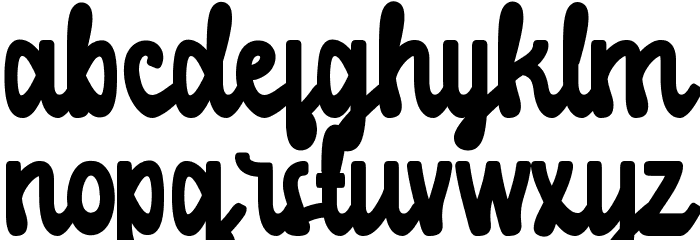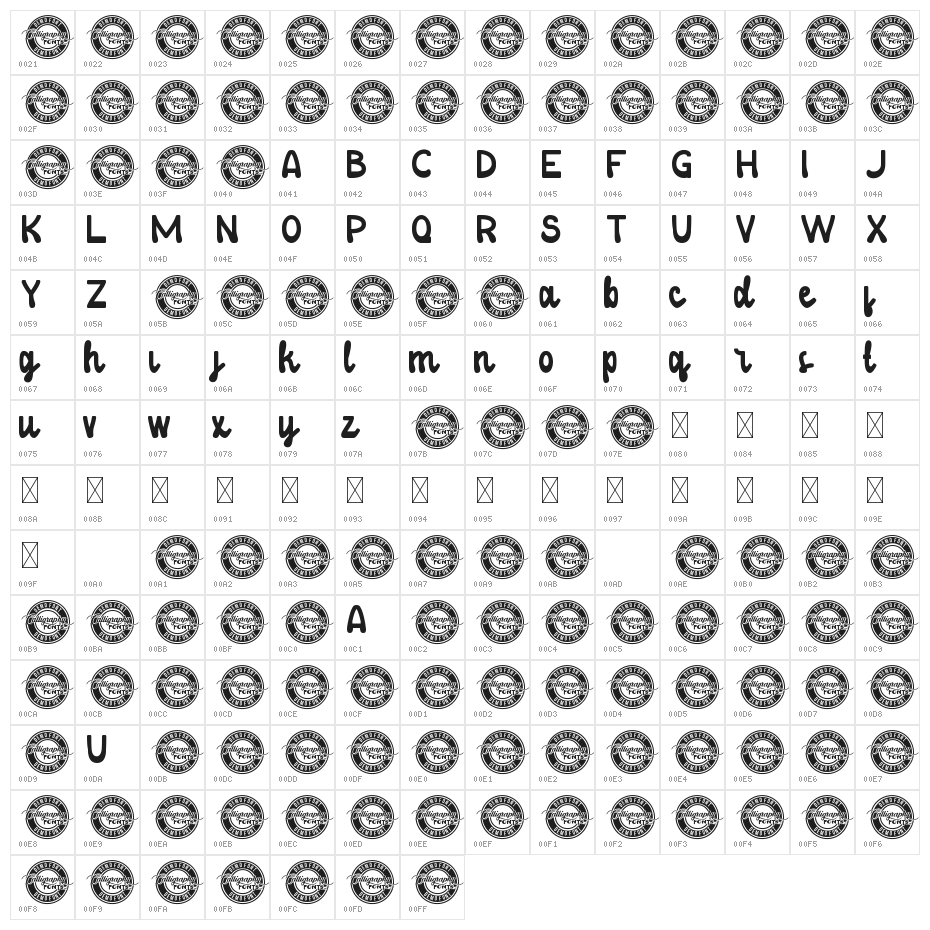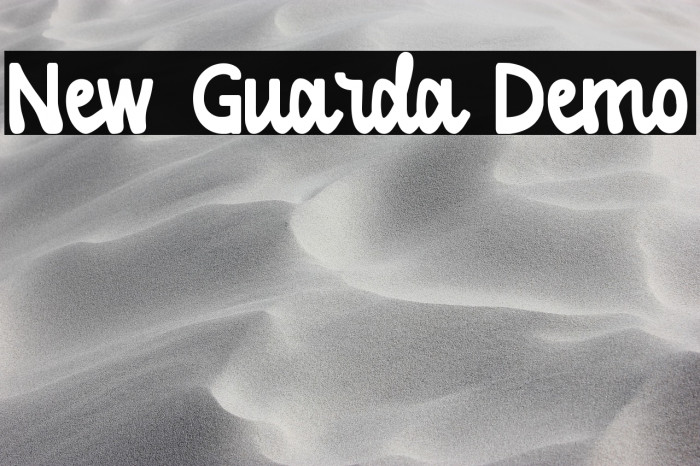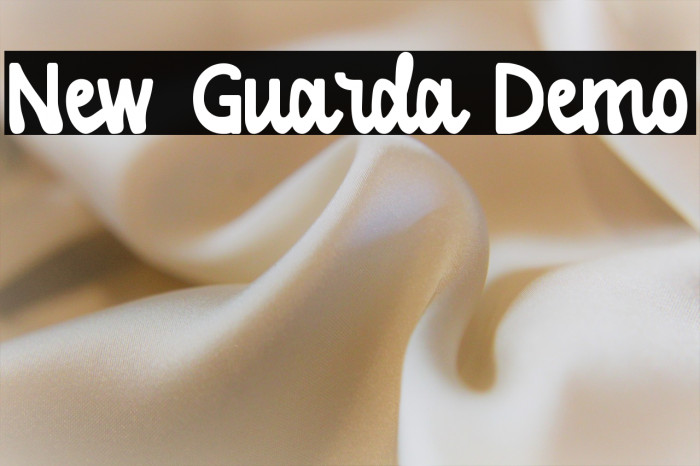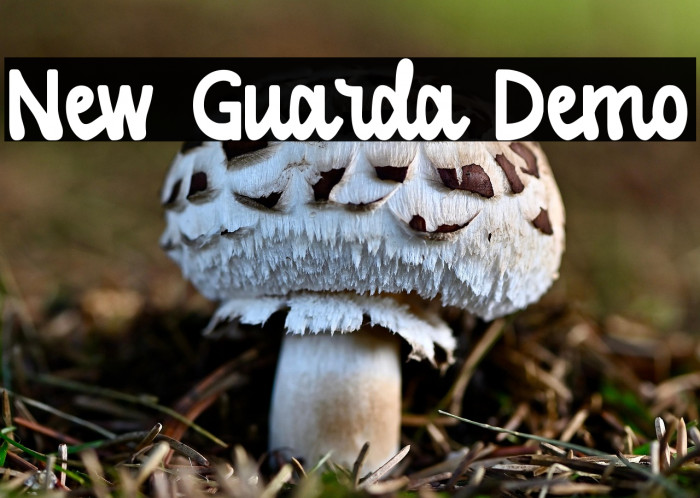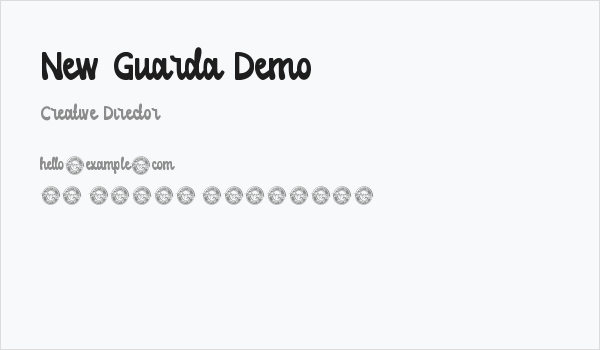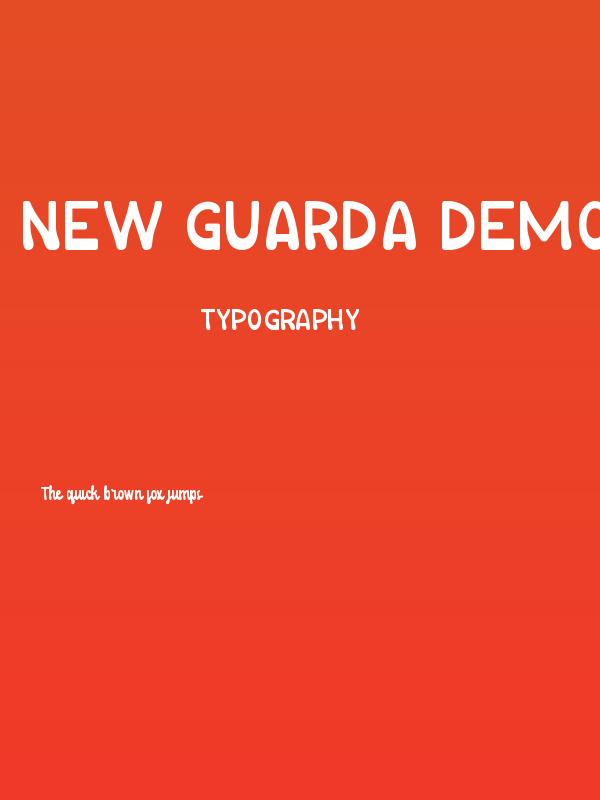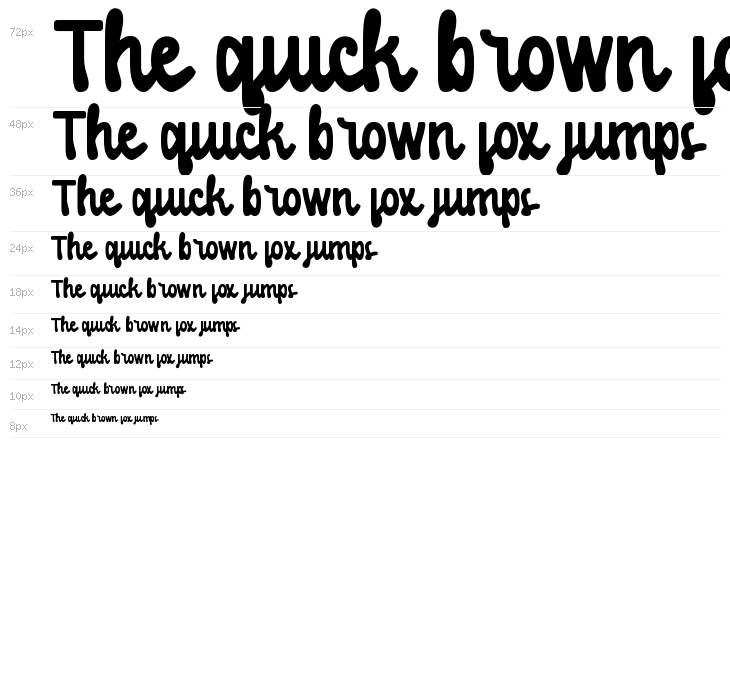
New Guarda Demo Font
This font features a bold and playful design, characterized by its rounded and slightly condensed letterforms. The uppercase letters maintain a uniform height, while the lowercase letters exhibit a unique, flowing script style that adds a touch of elegance and creativity. The font's thick strokes and smooth curves create a sense of warmth and friendliness, making it ideal for projects that require a personal and approachable touch. The consistent stroke width across characters ensures readability, while the distinctive style of the lowercase letters adds a dynamic and artistic flair. This font is versatile and can be used in various design contexts, from branding and logos to headlines and posters.
A bold, playful font with rounded, condensed letterforms and a flowing script style.
- Font: New Guarda Demo
- Proposed Projects: Ideal for branding, logos, headlines, posters, and creative design projects.
- Overall Style: Playful, Creative